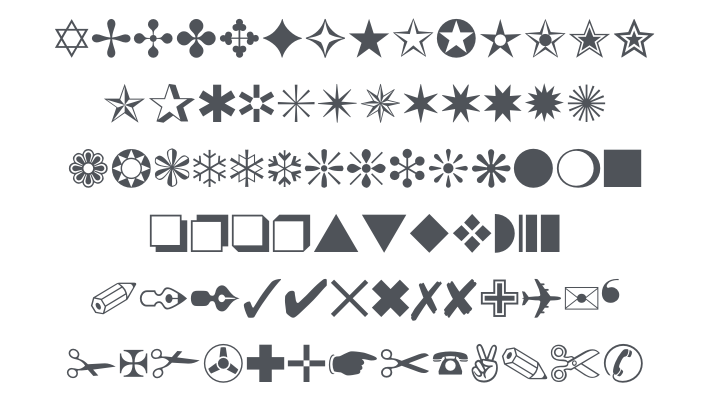
D050000L Font
by URW++
About D050000L
D050000L is a dingbats symbol font from URW++ included in the URW Base35 open-source font package, a collection of 35 freely distributable PostScript Level 2 core font equivalents. It is the free alternative to Zapf Dingbats, providing a wide assortment of bullets, arrows, stars, and decorative symbols accessible via standard character codes, widely used in print layouts, lists, and ornamental design.